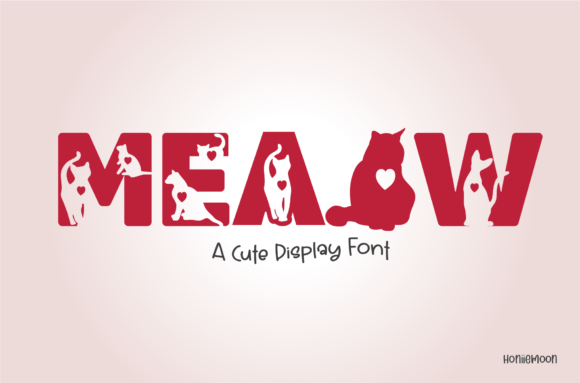
Meaow Font
Unleash Your Brand's Personality: Meaow Font - The Purr-fect Font for Creative Businesses
In a digital world saturated with uniformity, your brand needs a voice that resonates with your audience. Meaow Font, a delightful decorative font, is the key to unlocking a world of creative possibilities, allowing you to communicate your brand's essence with a touch of whimsy and charm.
Meaow Font: Where Cute Meets Jolly
Picture this: a font that exudes both cuteness and jolliness, instantly captivating your audience's attention. Meaow Font is a typographic masterpiece that effortlessly blends these two seemingly contrasting qualities, resulting in a font that radiates positivity and playfulness. Each letter dances across the screen, evoking a sense of joy and wonder that will leave a lasting impression on your customers.
The Power of Imagination: Unleashing Your Creative Potential
With Meaow Font, the only limit is your imagination. This font is a blank canvas, inviting you to paint your creative vision onto any design project. Whether you're crafting logos, designing apparel, creating social media graphics, or any other creative endeavor, Meaow Font will elevate your designs, transforming them into eye-catching masterpieces that speak volumes about your brand's personality.
Bring Your Ideas to Life: A Font That Transforms Concepts into Reality
Meaow Font possesses the magical ability to breathe life into your creative ideas. Imagine your designs adorned with this enchanting font, captivating your audience with its unique charm. From playful product labels to whimsical website headers, Meaow Font will add a touch of magic to every project, turning your concepts into tangible realities that resonate with your customers.
A World of Possibilities: Endless Applications for Meaow Font
The versatility of Meaow Font knows no bounds. Its playful nature makes it the perfect choice for children's products, evoking a sense of wonder and imagination. Unleash its potential in fashion and lifestyle designs, where its jolly spirit will infuse your creations with a touch of lightheartedness. Meaow Font is equally at home in branding and marketing materials, adding a distinctive touch that sets your brand apart from the competition.
Honiiemoon: The Creative Force Behind Meaow Font
Honiiemoon, the creative mastermind behind Meaow Font, is renowned for crafting fonts that capture the essence of joy and playfulness. Each font is a testament to their passion for creating typographic art that inspires and delights. With Meaow Font, Honiiemoon has once again woven their magic, delivering a font that will transform your designs into extraordinary expressions of creativity.